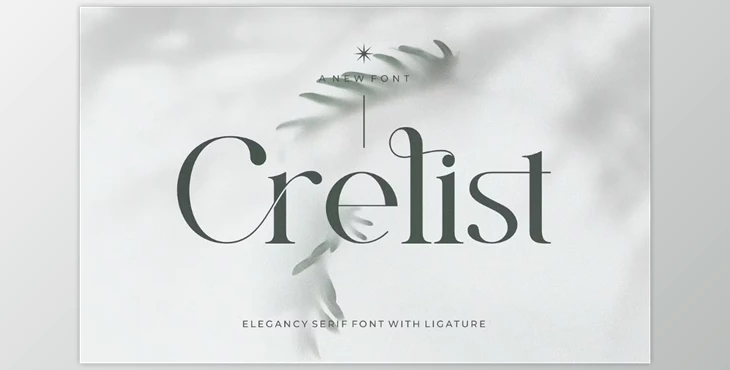
Crelist || Serif Font Creative Market - 289453788:
Crelist Serif is an elegant and versatile serif font that offers a perfect balance of sophistication and smoothness. With its stylish alterations and ligatures, this font is ideal for high-end design projects such as invitation cards, company logos, movie titles, book covers, and business branding. Its refined character set makes it suitable for various creative applications, adding a touch of elegance to any design.
Some great features of Crelist || Serif Font Creative Market - 289453788:
- Includes ligatures for a polished look
- Uppercase and lowercase letters, along with numbering and punctuation